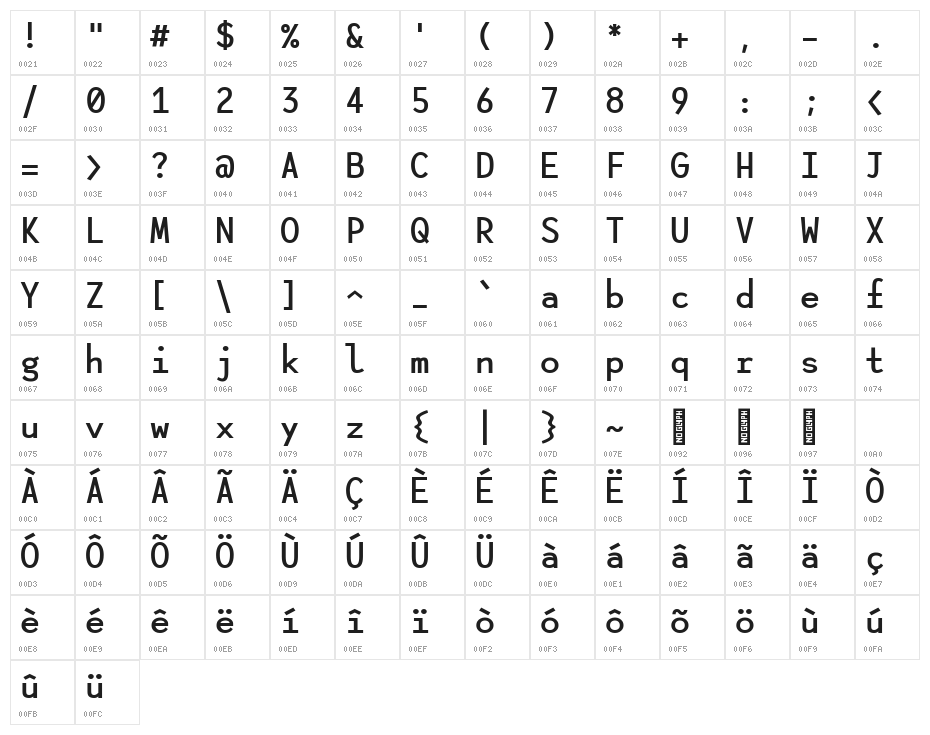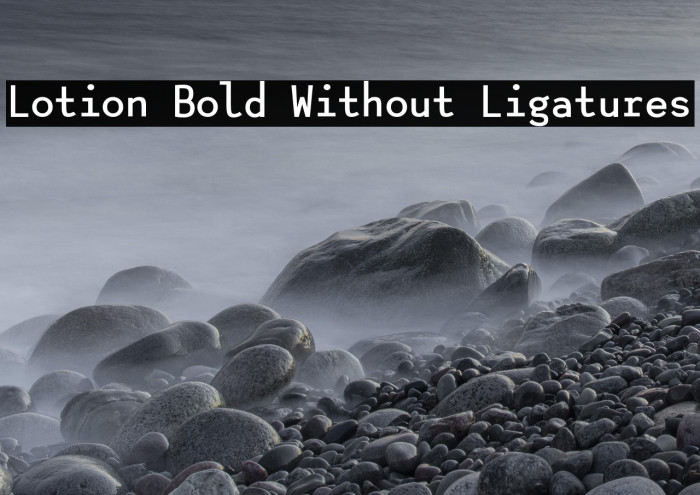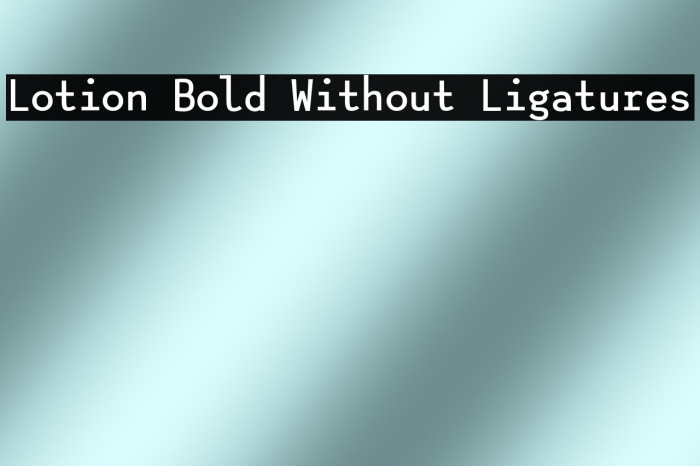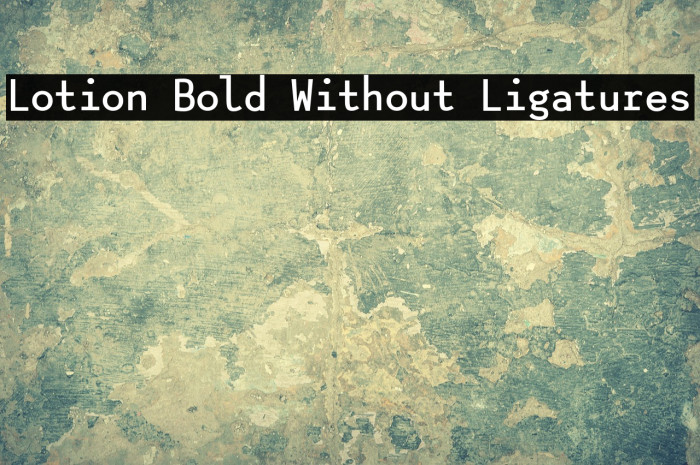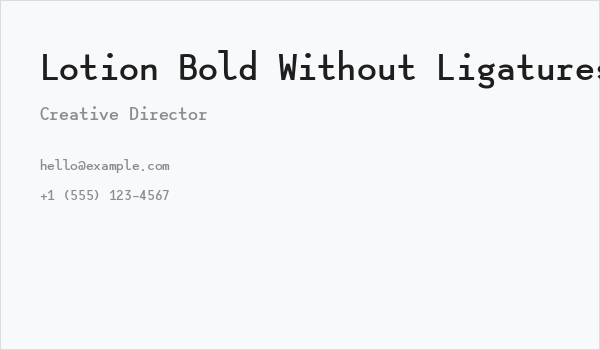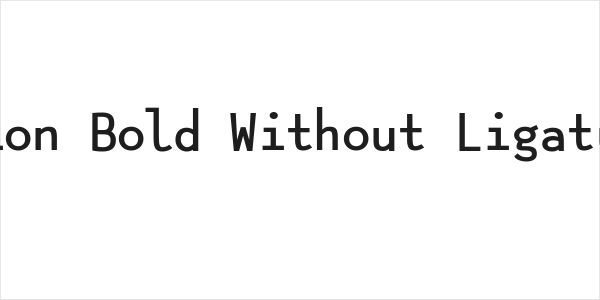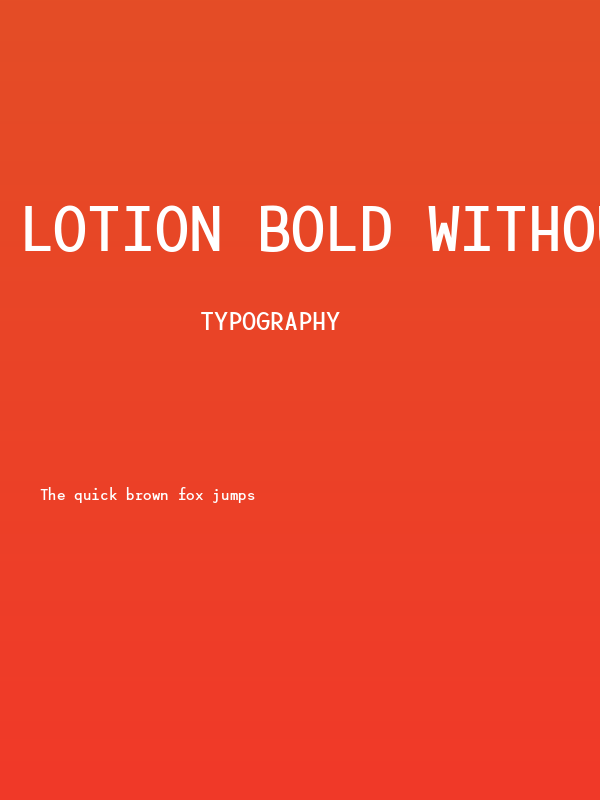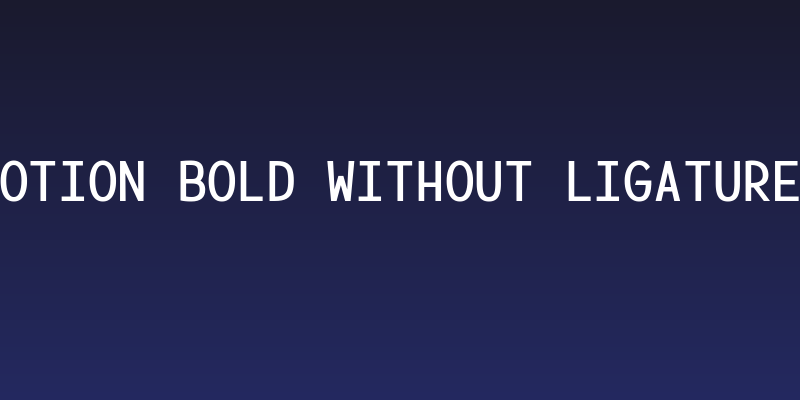
Lotion Bold Without Ligatures Font
Lotion Bold Without Ligatures Description
This font exhibits a bold and robust character with a clean and straightforward design. The uppercase letters are uniform in height, providing a strong and consistent appearance. The lowercase letters maintain a similar width, ensuring readability and balance. The numerals are clear and distinct, making them easily distinguishable. Special characters are well-defined, adding versatility to the font. The overall style is modern and functional, suitable for various applications where clarity and impact are essential.
| Use Case | Headlines, Logos, Signage |
| Proposed Projects | Ideal for branding, signage, headlines, and digital content where boldness and clarity are required. |